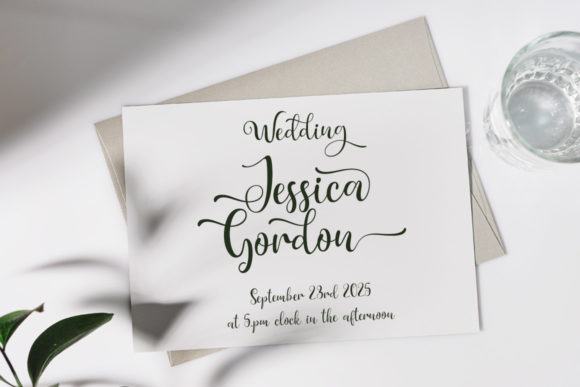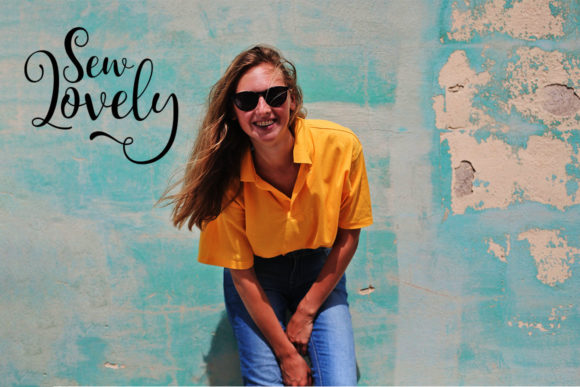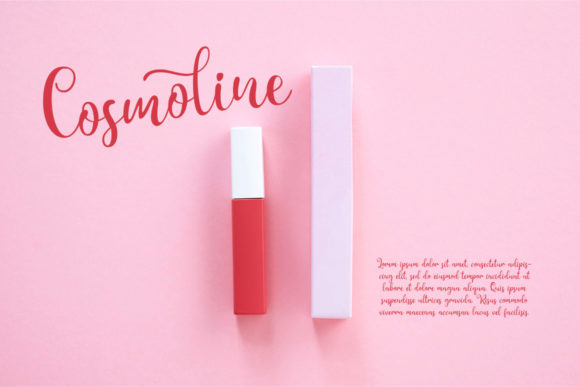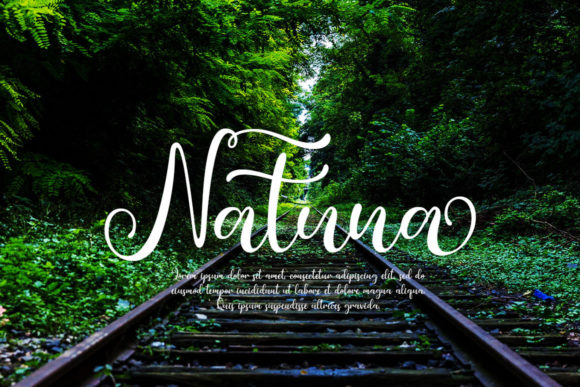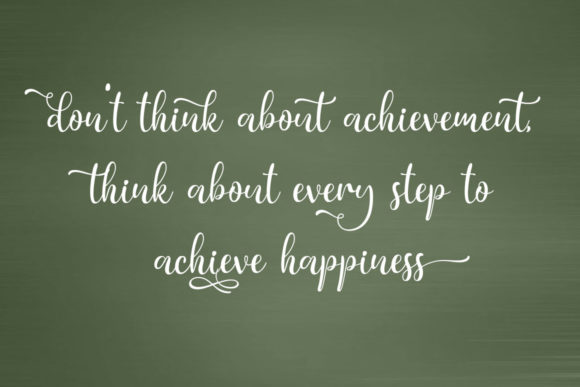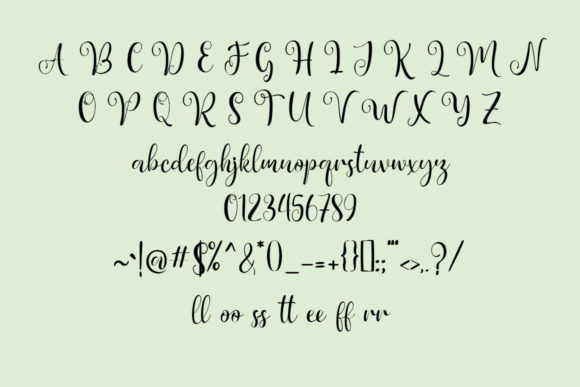
Introduction to Roseting Font Font
Fonts play a crucial role in design, and the Roseting Font font is a typeface that brings both character and versatility to any project. Whether you’re working on a branding project, a website, or a print design, the Roseting Font font offers a unique style that can elevate your work.
Roseting is a sweet and delicate handwritten font.
Dainty and joyful, this font will be ideal for writing wedding invitations, cards or any other design that may need a romantic, personalized touch Roseting is PUA encoded which means you can access all of the glyphs and swashes with ease.
The Roseting Font font is more than just a typeface – it’s a design tool that helps you communicate your message with style and clarity. Its unique character set and versatile design make it suitable for a wide range of applications, from elegant invitations to bold headlines.
With its carefully crafted letterforms and balanced proportions, the Roseting Font font ensures readability and visual appeal across all mediums.
The Roseting Font font stands out with its unique design, exceptional readability, and versatility across various design applications.